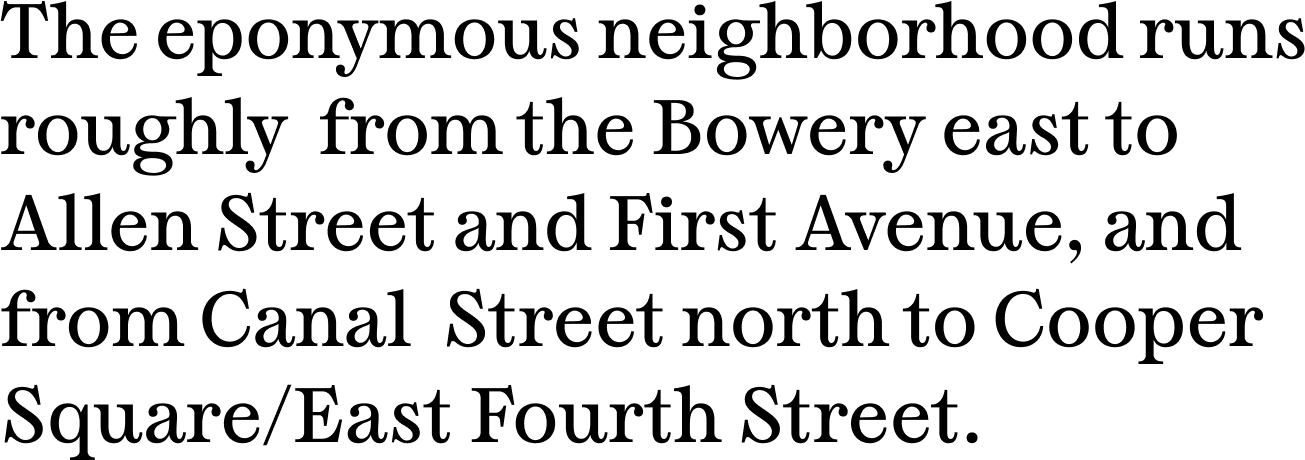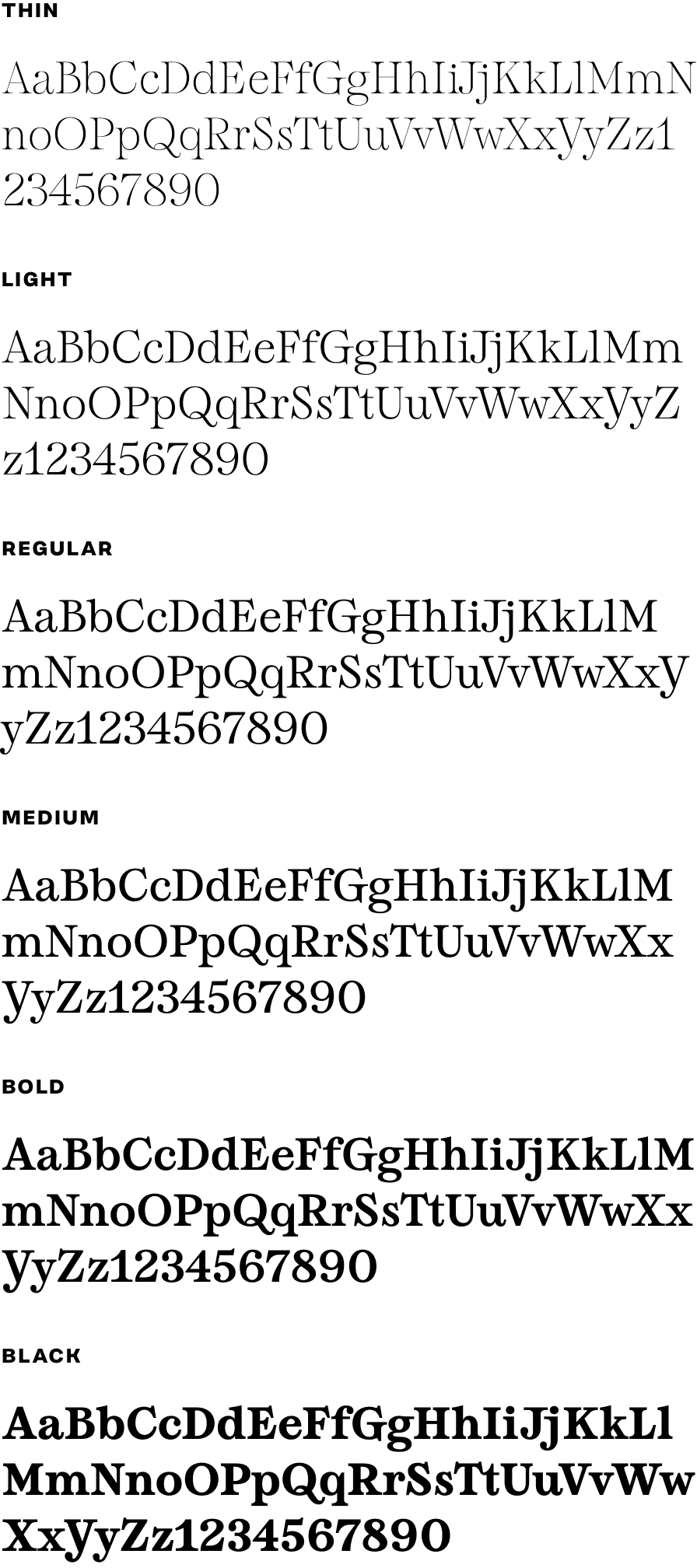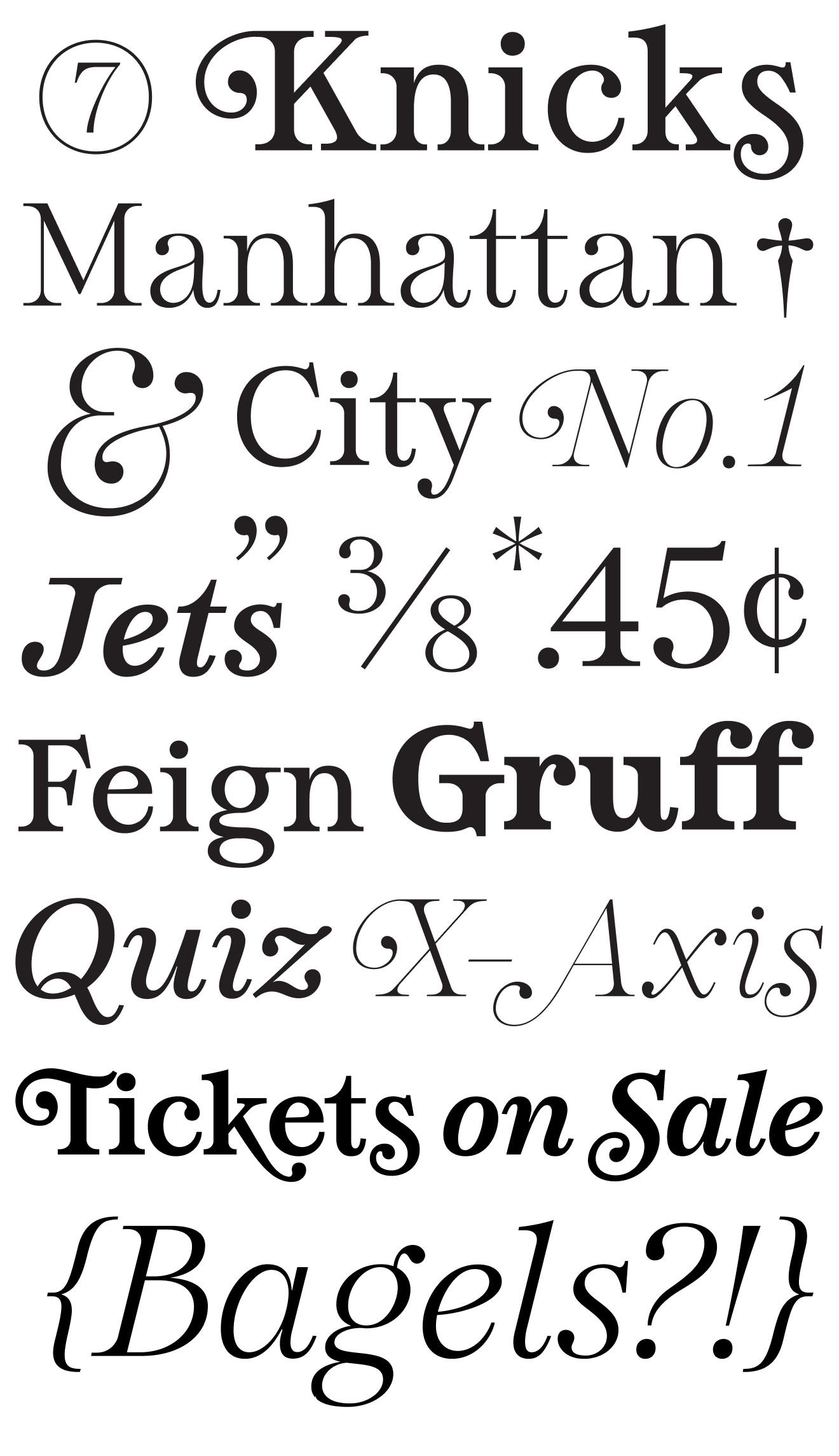
Bowery Lane
Bowery Lane is a charming, whimsical, exaggerated serif typeface designed by Amy Hood of Hoodzpah. Amy tagged our team in to assist on proofing and refining Amy’s existing masters. We cleaned up glyphs, executed kerning, and proofed the typeface to ensure consistency and optimal exports.
Bowery Lane
The Family
Identifiers
Low contrast
Exaggerated serifs
Swash curl alternates